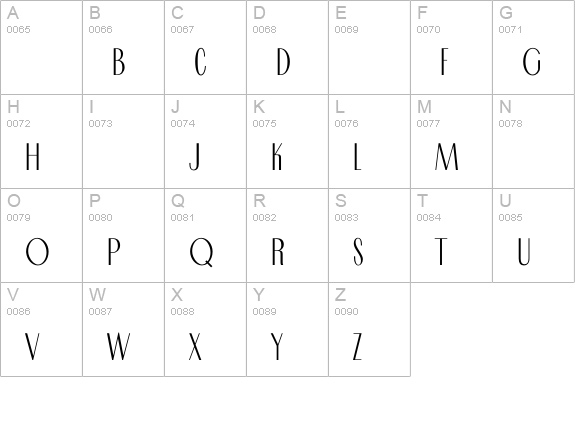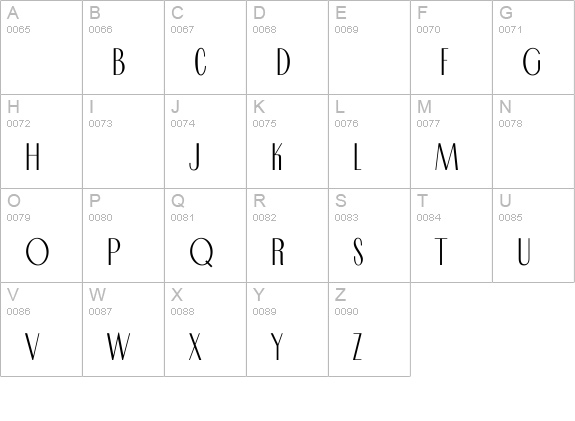
CameoThinline font is a stylish and modern typeface that exudes elegance and sophistication. Its sleek and slim design adds a touch of class to any project, making it perfect for luxury branding, editorial design, and more. With its clean lines and subtle curves, CameoThinline font is both eye-catching and easy to read, making it a versatile choice for a wide range of design applications. The best part? CameoThinline font is available for free download at FontsMarket.com, making it accessible to designers and creatives of all levels. Whether you're working on a personal project or a professional assignment, CameoThinline font is sure to elevate your design and leave a lasting impression. Download this stunning font today and add a touch of sophistication to your next project.